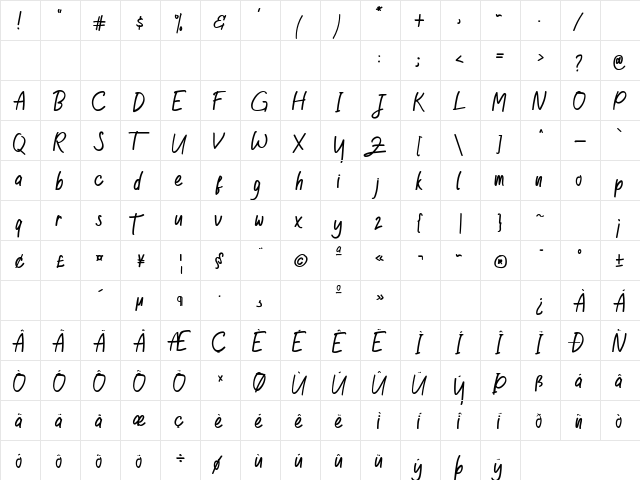
Good Happiness Regular
| Designer | Dwi Creatifive |
Design Context for Good Happiness Typeface
Good Happiness is a composed and adaptable typeface that performs quietly and consistently across a wide range of design contexts.